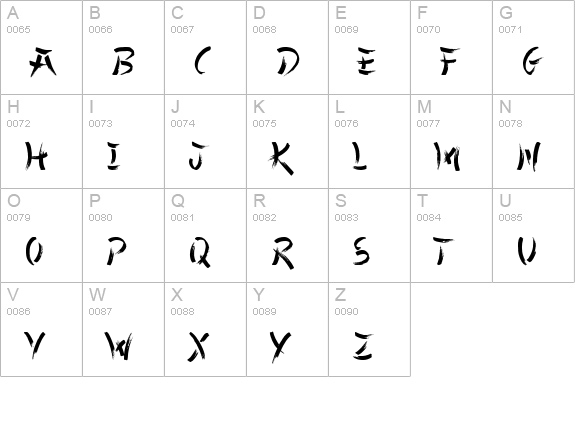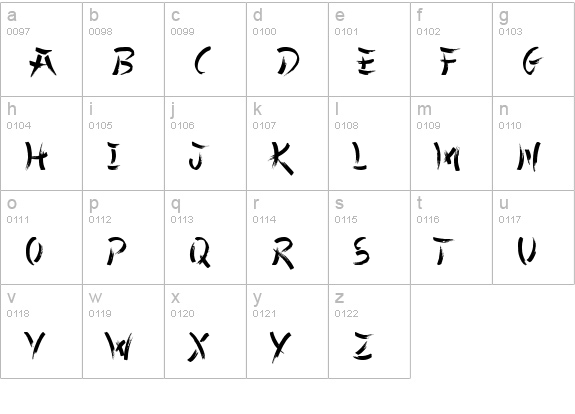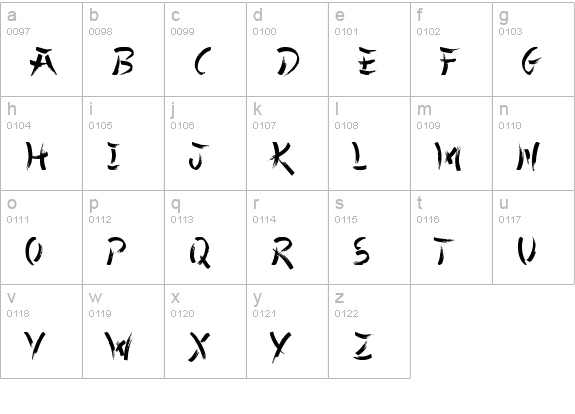
China Town Font Details
China Town font is a captivating and versatile typeface that effortlessly combines traditional Chinese calligraphy with a modern twist. With its intricate strokes and elegant curves, this font exudes a sense of sophistication and cultural richness. Each character is meticulously crafted, paying homage to the beauty of Chinese characters while incorporating contemporary design elements. This font is perfect for a wide range of design projects, from branding and packaging to posters and invitations. Its unique style adds a touch of authenticity and uniqueness to any design, making it stand out from the crowd. Whether you're looking to create a stunning logo for your business or a visually striking headline for a magazine, China Town font is sure to impress. One of the best things about China Town font is that it is freely available to download at FontsMarket.com. This means that you can easily access this incredible font without any cost. You can unleash your creativity and explore the endless possibilities of this font without worrying about any limitations. With its extensive character set and seamless compatibility with various design software, China Town font is a must-have for any designer or typographer. So, why wait? Download China Town font today from FontsMarket.com and elevate your design projects to new heights. Whether you're working on a personal project or a professional undertaking, this font will undoubtedly add a touch of elegance and sophistication to your work. Embrace the beauty of Chinese calligraphy with China Town font and let your creativity flourish.